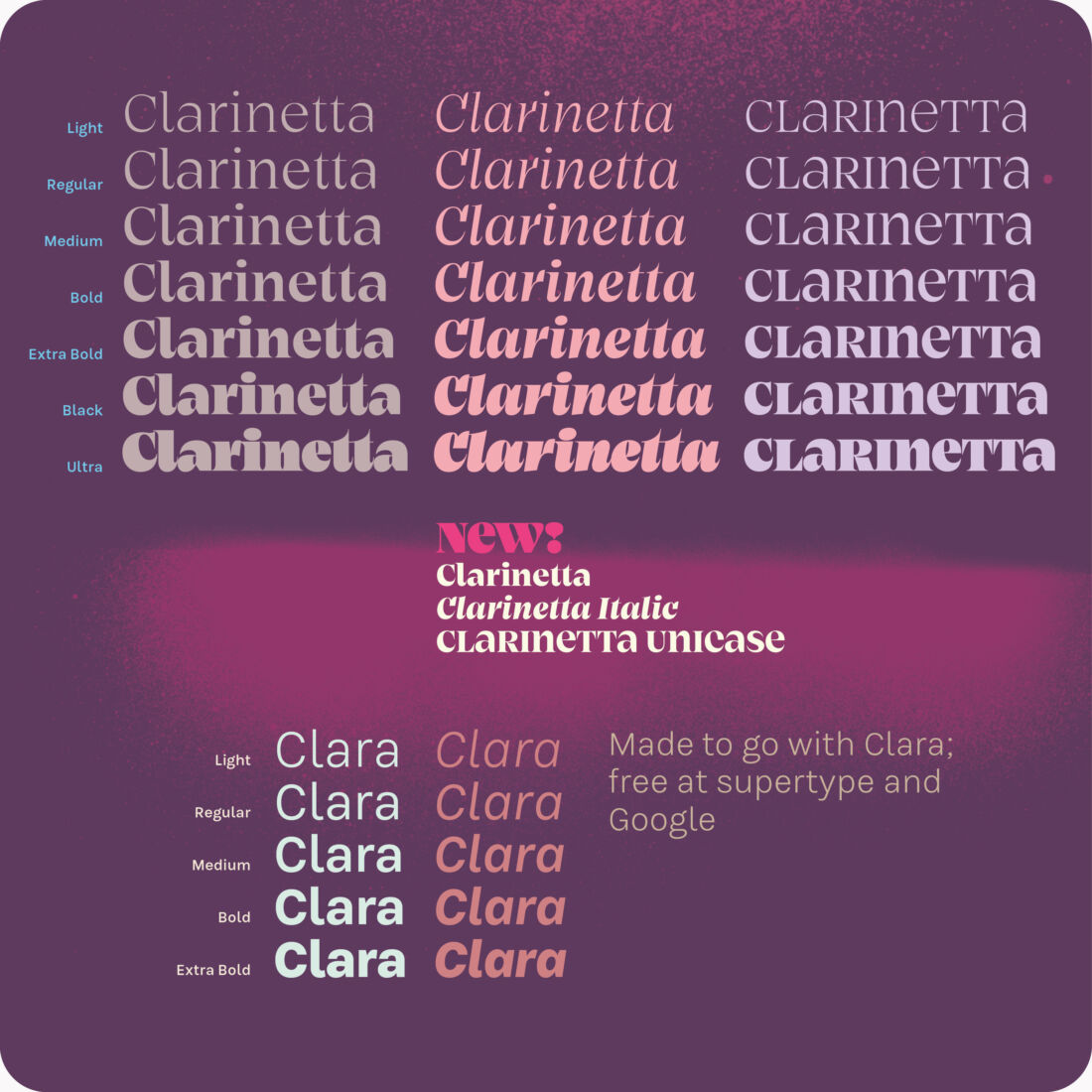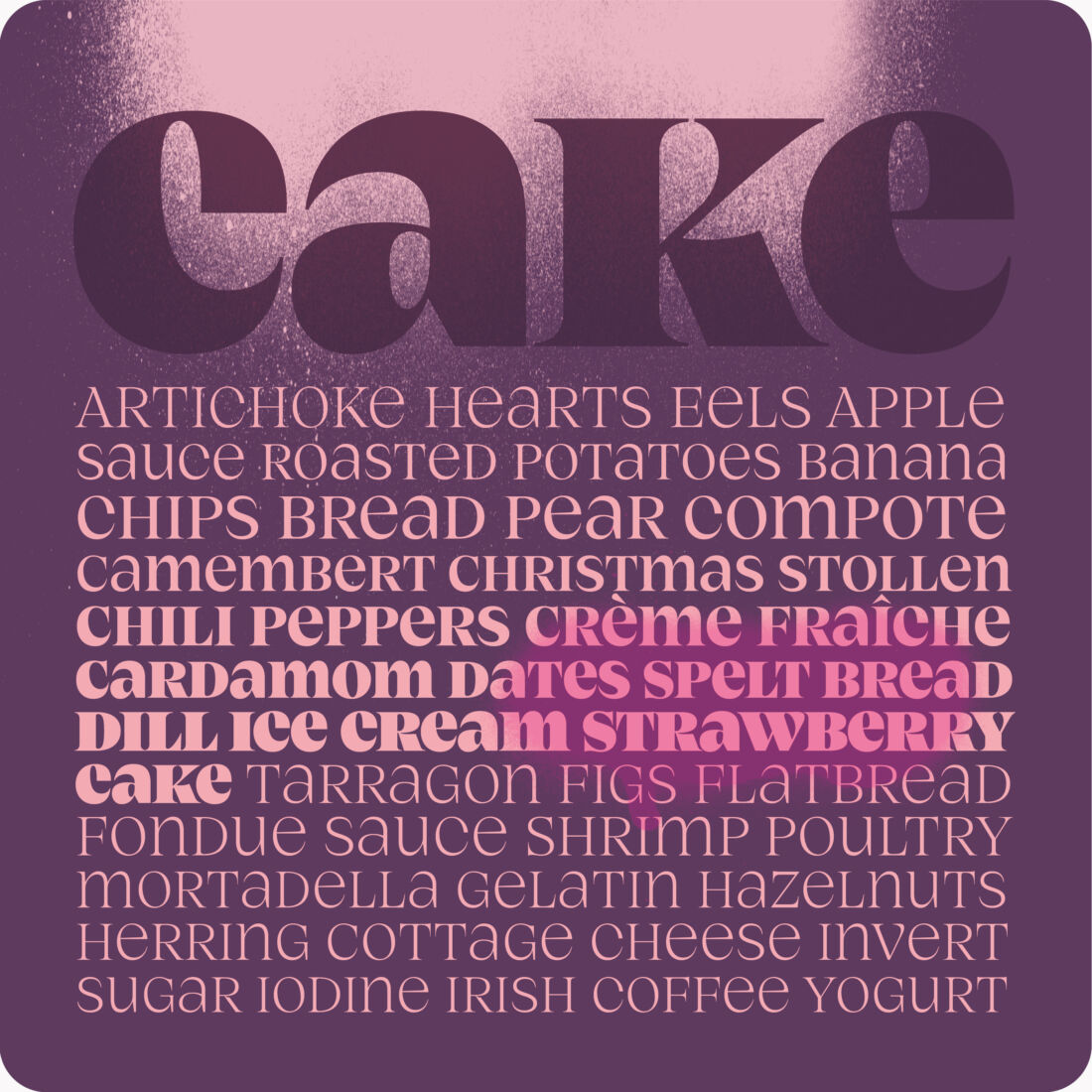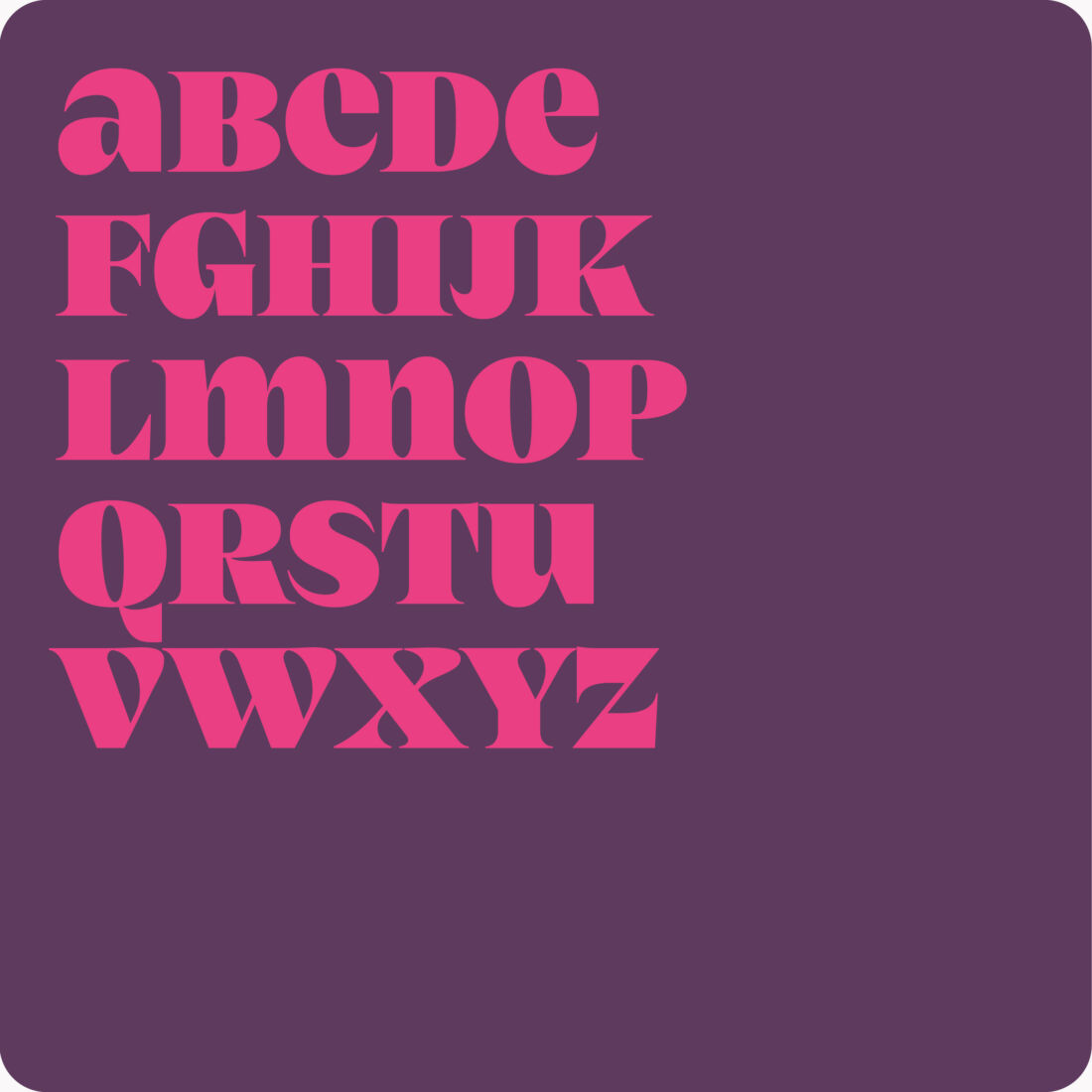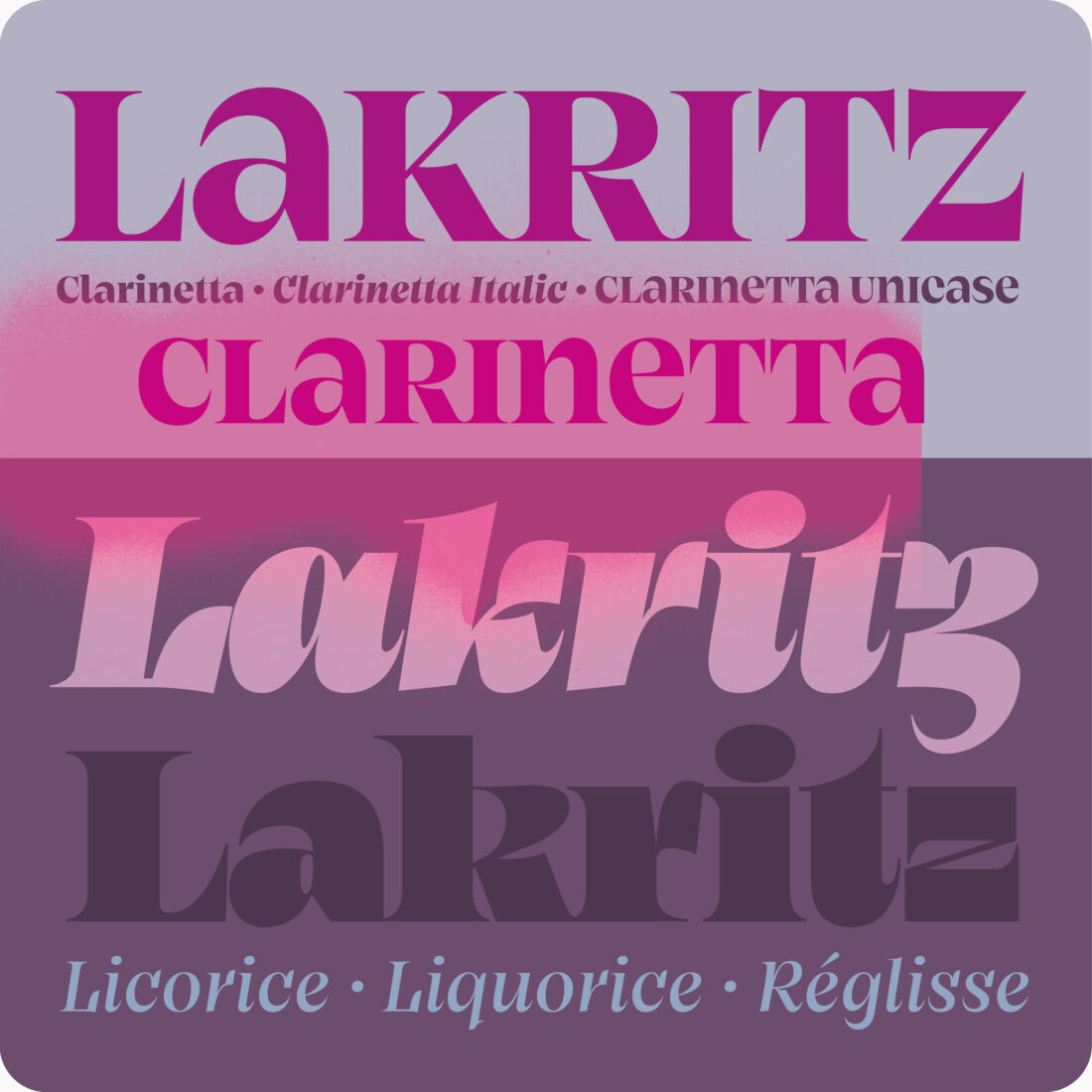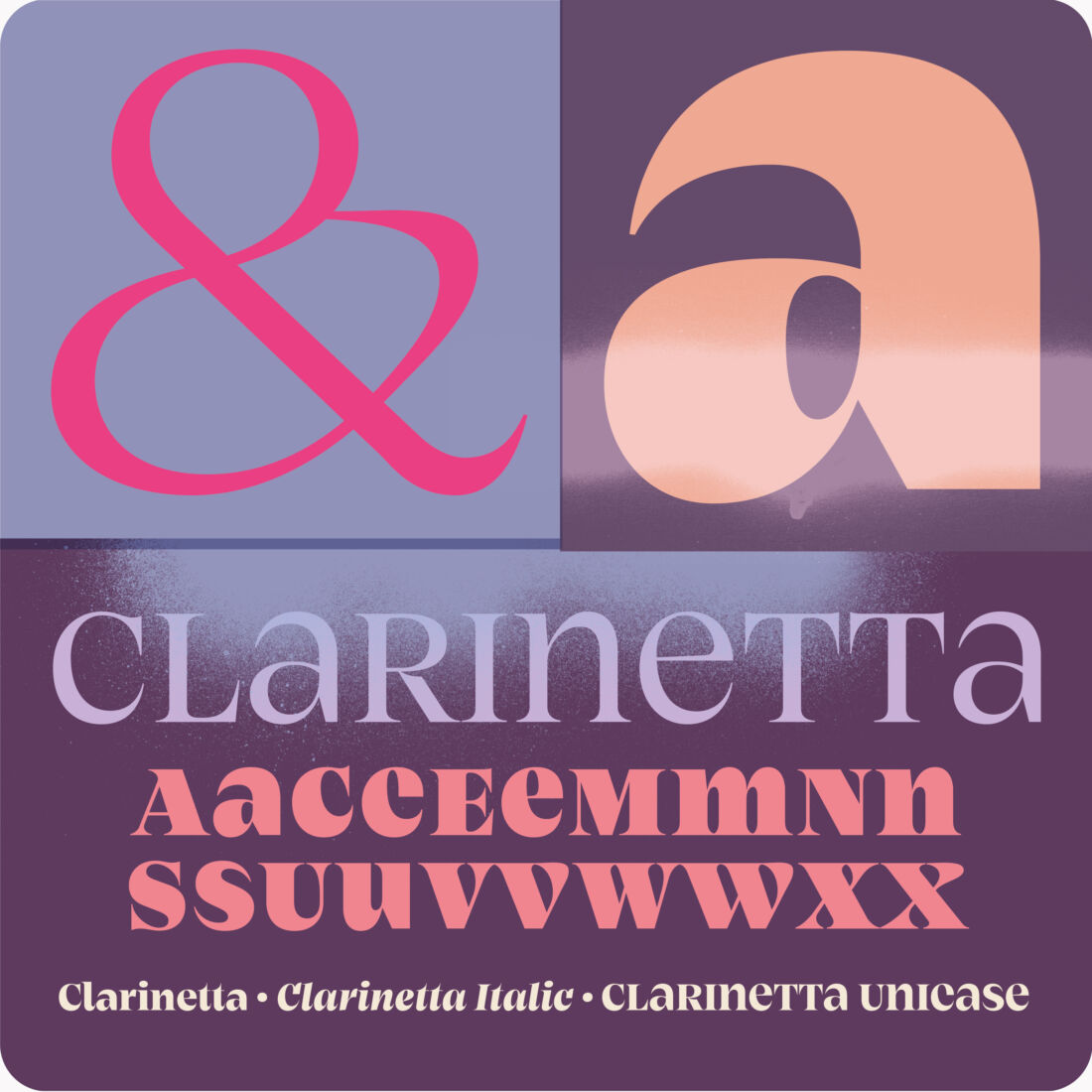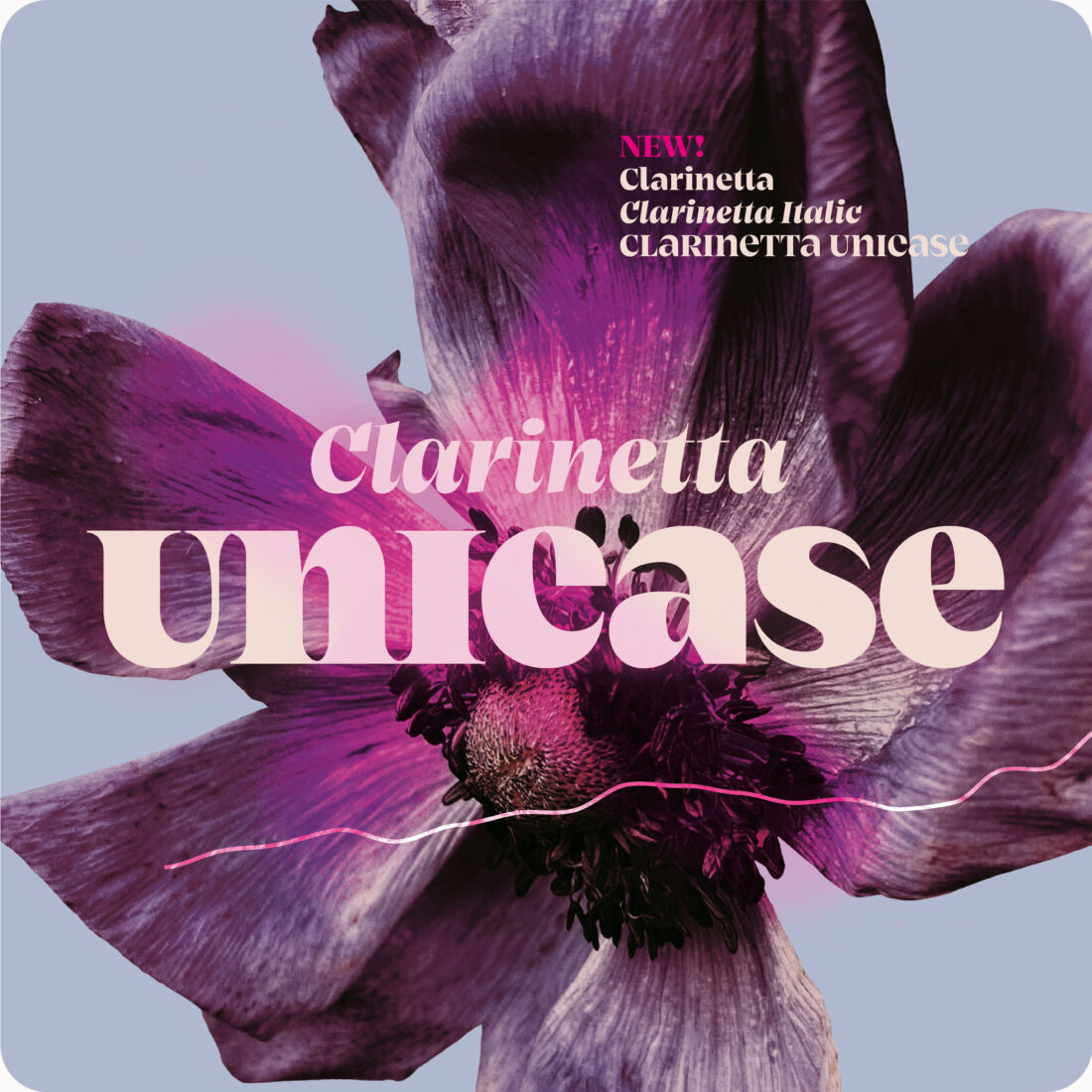
Clarinetta Unicase
Who Knew Serifs Could Be This Fun?
The Serif Serif Never Was
Just Another Serif
About Clarinetta Unicase
Clarinetta Unicase is a playful variation of the standard Clarinetta family, designed for designers who want to push beyond conventional letterforms. Unicase features small capitals—letters that share the height of their uppercase counterparts, creating a lighthearted, unconventional appearance. This creates a distinctly playful color and texture on the page, making it particularly well-suited for logotypes, headlines, and other display uses where visual impact and personality matter as much as readability. While maintaining Clarinetta's essential DNA—the elegant serifs, high contrast, and sophisticated construction—Unicase offers a fresh twist that breaks free from typographic convention. Like its parent font, Unicase includes the full Latin Extended character set and all three numeral styles, ensuring versatility across different design applications.